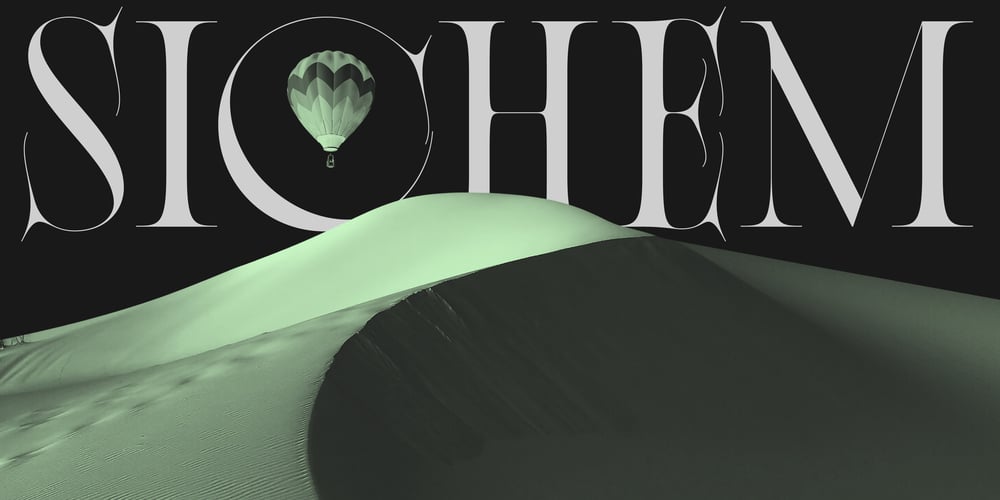
Sichem Font Family was designed by Anne Dauphine Borione and published by Blaze Type. Sichem contains 1 styles and family package options. Sichem is an exercise in transcribing in typographic form the weightlessness and aeriality of hot air balloons. It is an airy, elegant display typeface with unique serifs, and its great contrast, particularly in the rounded letters, reminds of eclipses and sun flares.This typeface can be effectively used in various design applications to add a touch of sophistication and personality. For example, when creating magazine headlines or book covers, Sichem’s generous sizes and intricate details can captivate readers’ attention and make a strong visual impact. Its alternate caps can be selectively employed to create a sense of hierarchy and enhance the overall composition.